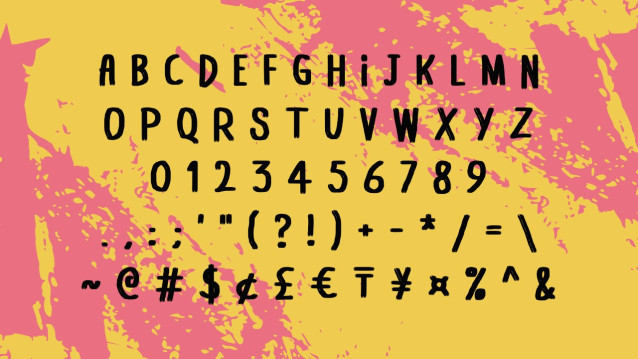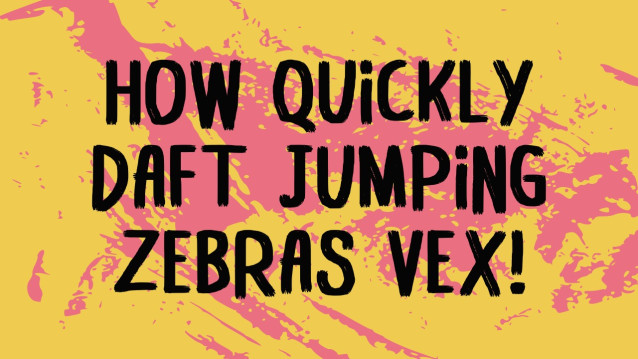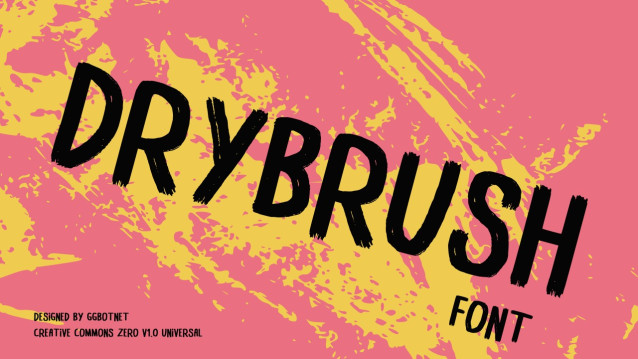
Drybrush Font
Drybrush Font, inspired by brush lettering-style typography. This font is perfect for a design that makes it more attractive and playful. It was made with a very good level of aesthetics, making this font suitable for a book cover, poster, packaging, merchandise, logotype, and much more.